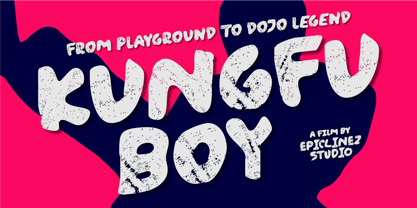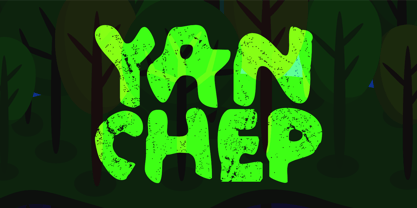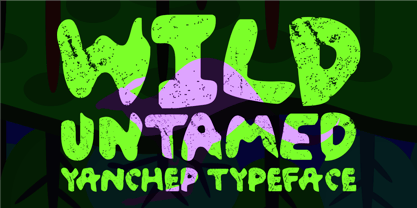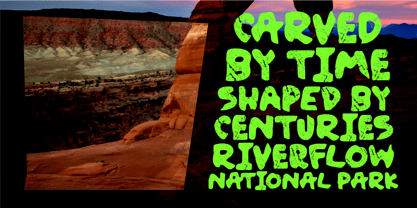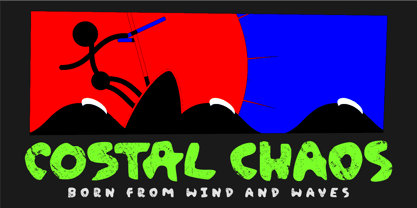
Yanchep
by Epiclinez
The Yanchep Font Family was designed by Aldy Sidik and published by Epiclinez. Yanchep contains 1 styles. More about this family
Born from the raw power of crashing waves and weathered stone, Yanchep is a bold, raw display font carved from wind, salt, and rugged terrain. This typeface captures the untamed energy of eroded cliffs, storm-driven tides, and harsh natural elements — delivering a powerful, distressed look that feels authentic and unapologetically strong. Built with rough edges, organic textures, and natural imperfections, Yanchep Rough brings cinematic intensity to every headline. The letterforms feel shaped by time yet solid and commanding — perfect for designers who want impact without polish. Designed to dominate in large sizes, this font thrives on posters, movie titles, outdoor branding, album covers, adventure logos, streetwear graphics, and bold social media visuals. Pair it with a clean sans-serif for modern contrast or layer it over textured backgrounds for maximum drama and depth. Yanchep — Wild. Weathered. Unbreakable.